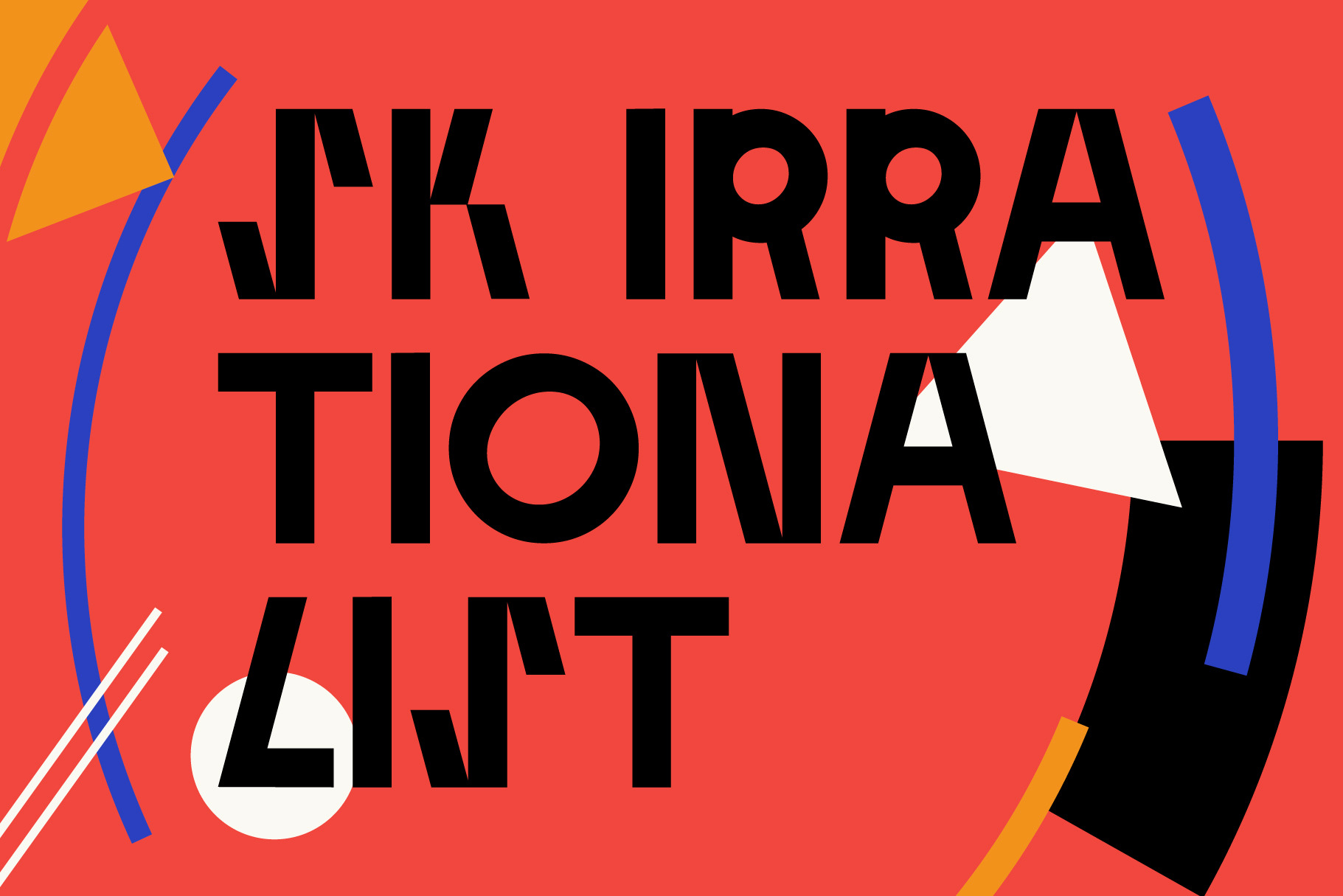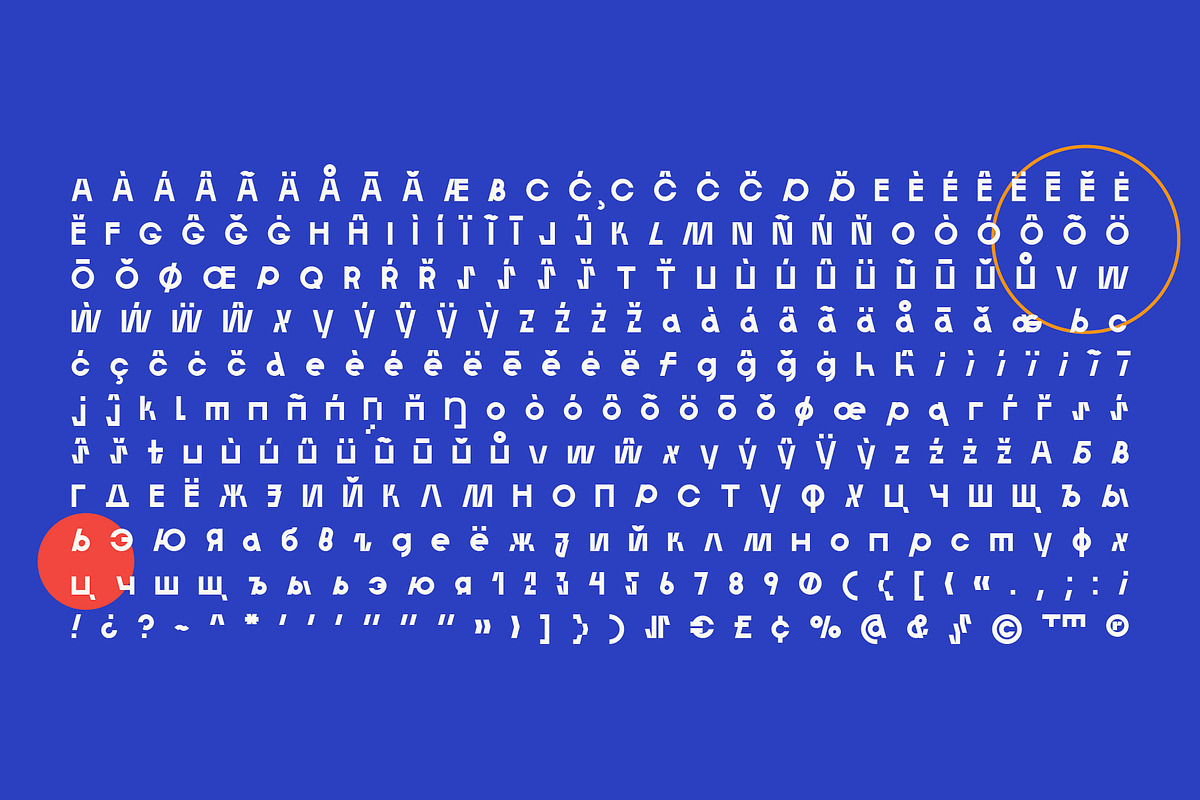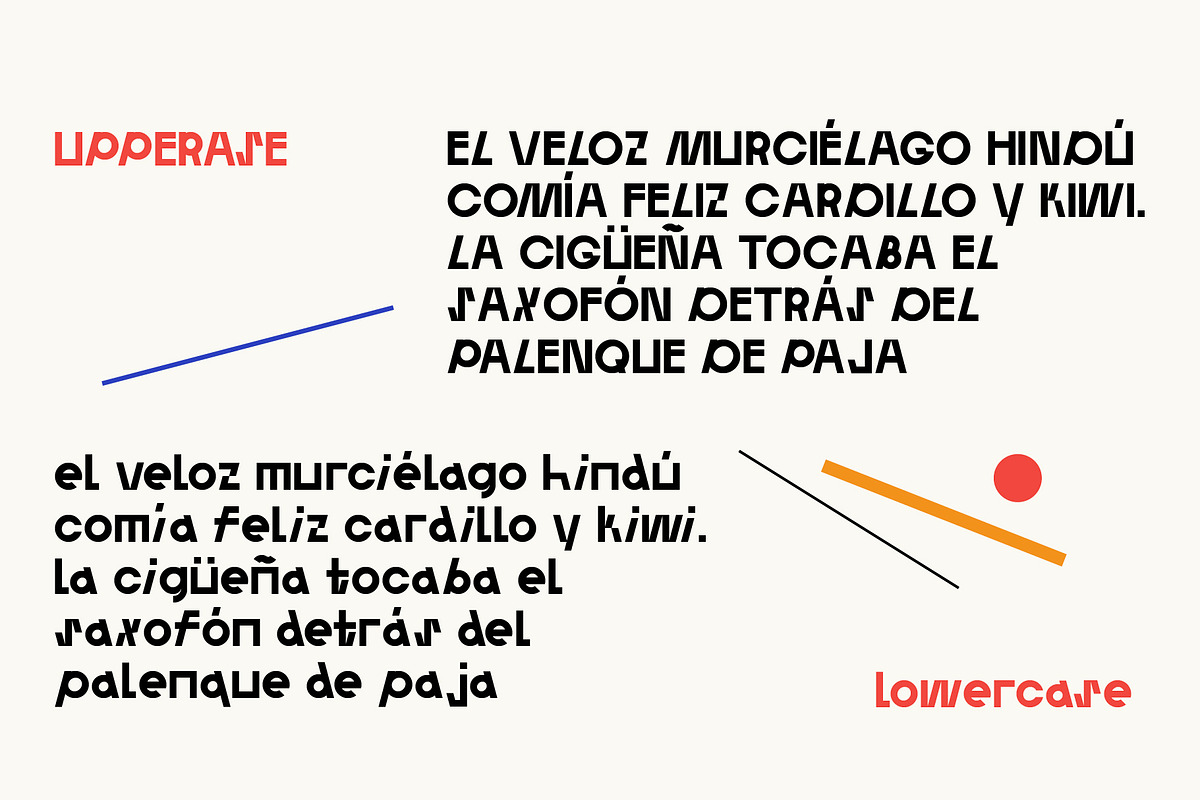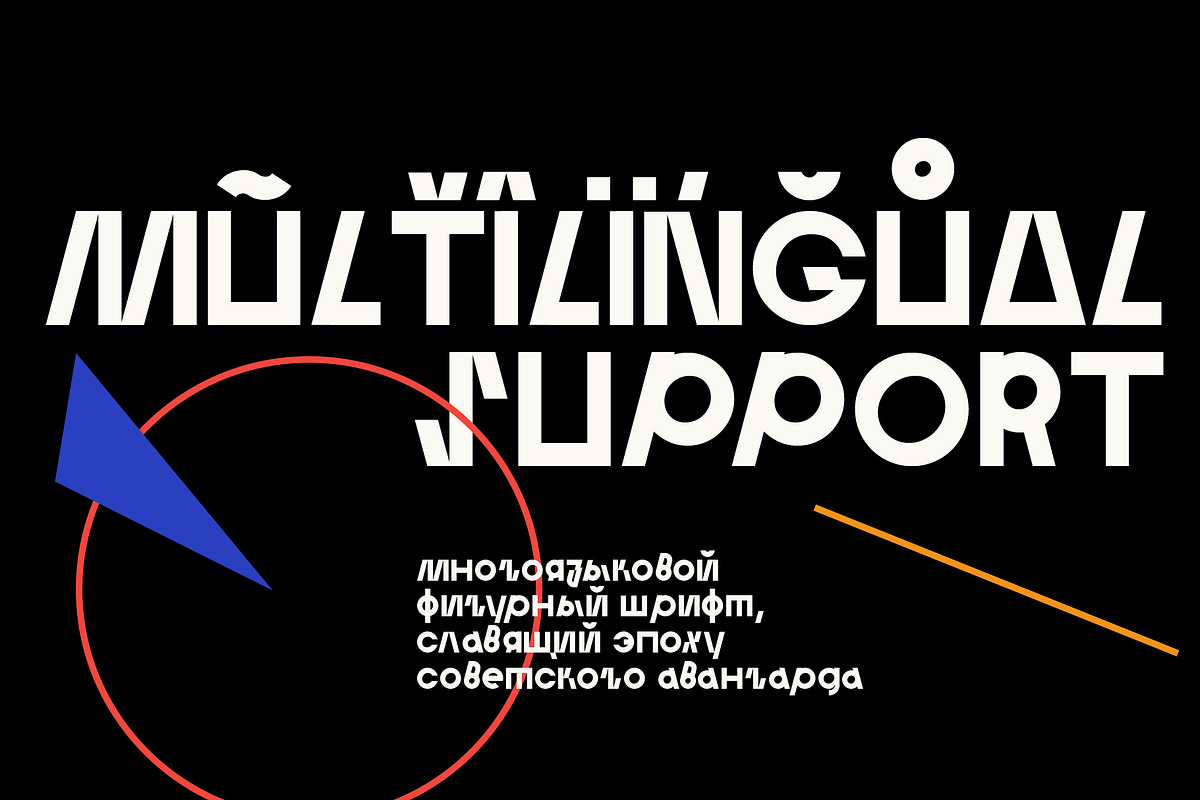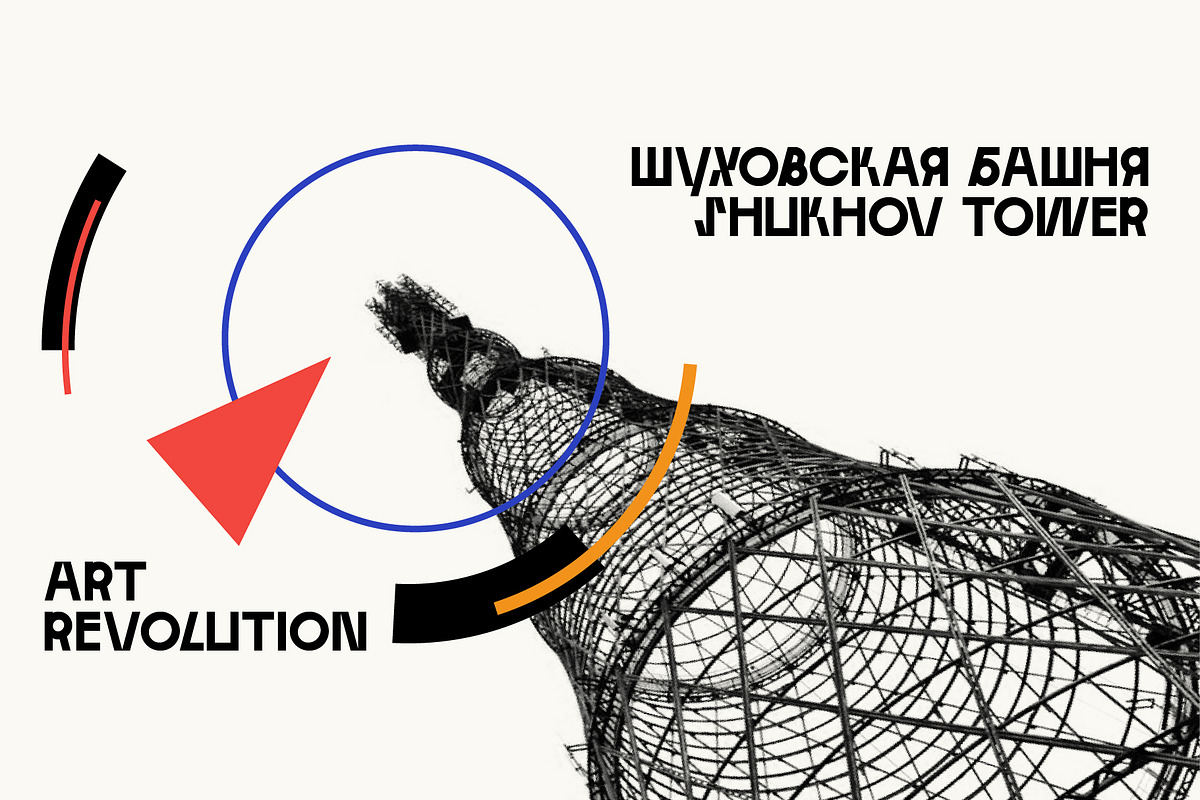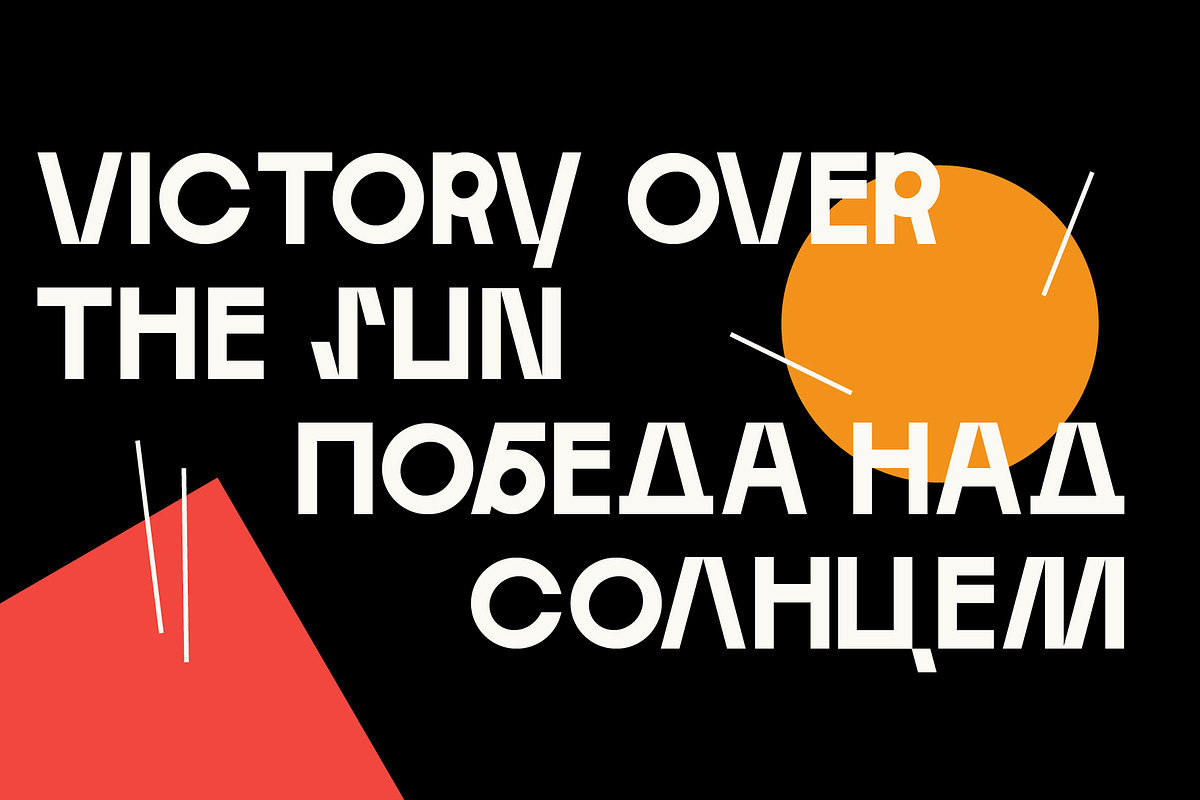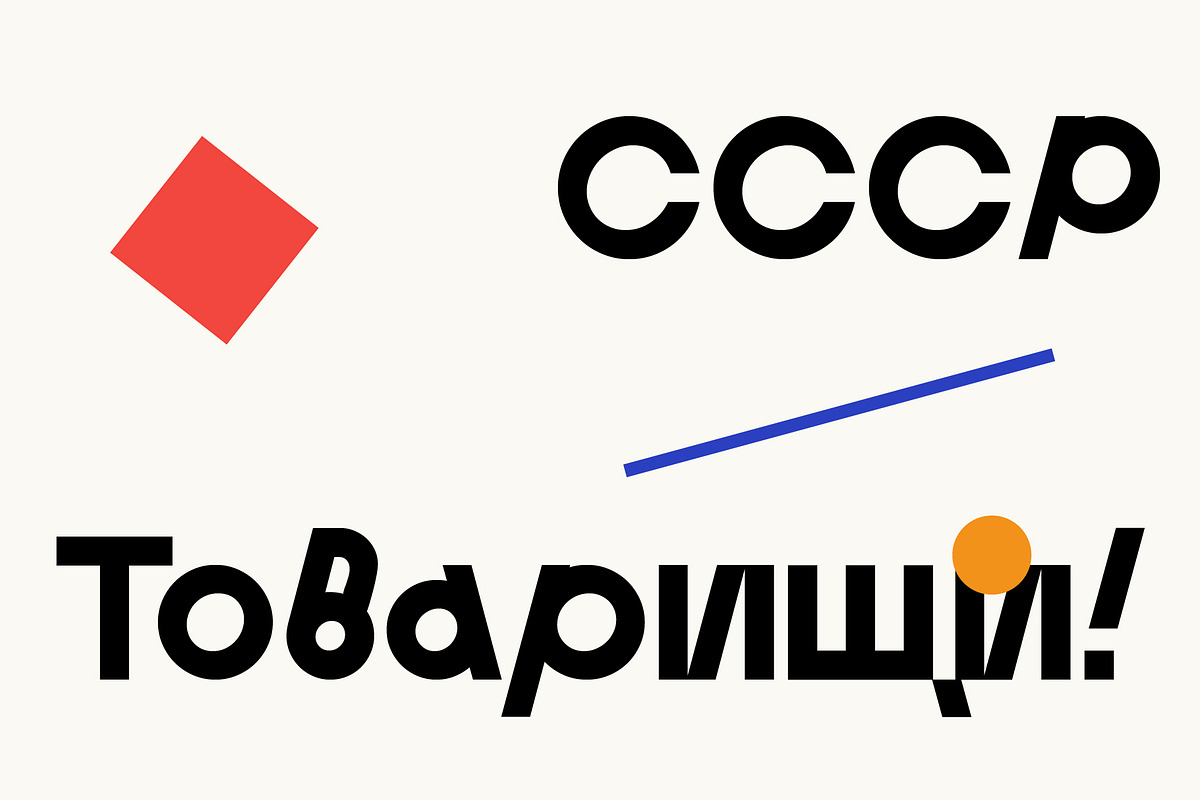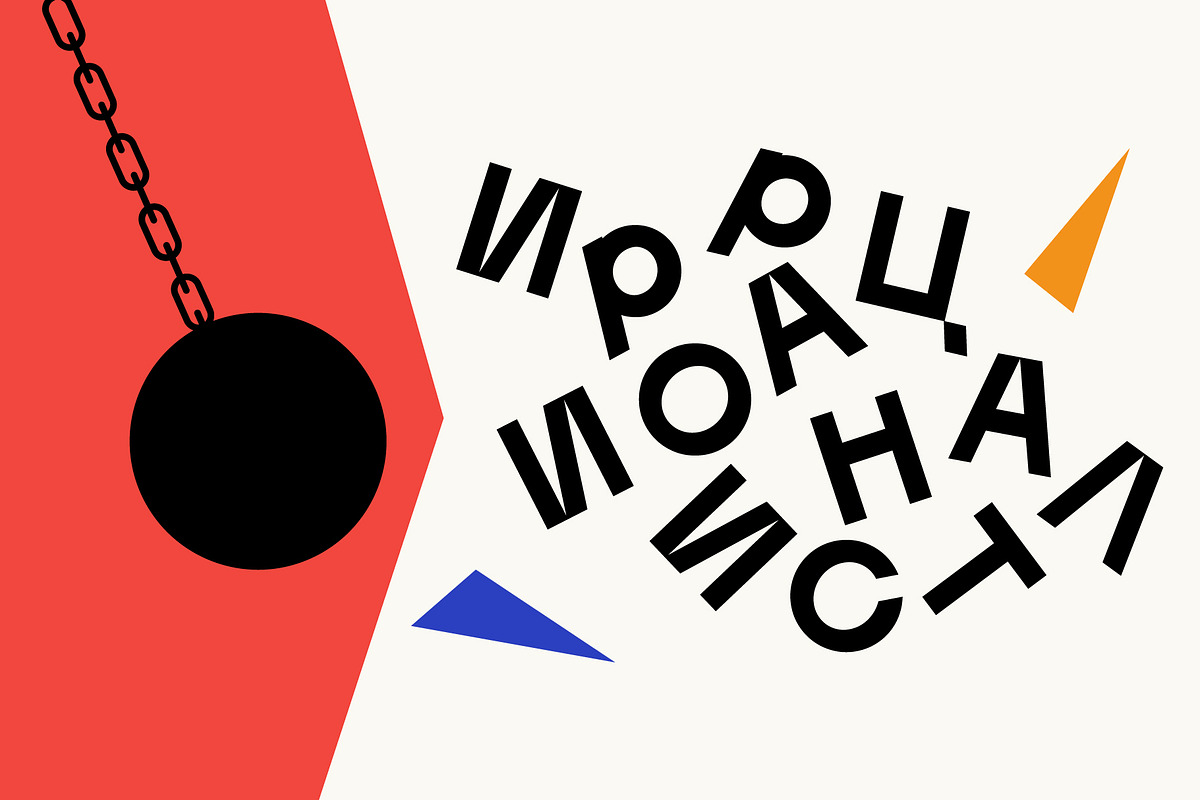
SK Irrationalist — Experimental Font
SK Irrationalist has a unique modernist form and a bold spirit. It is inspired by the works of constructivist artists of the early XX century. It uses non-standard graphic techniques. Slanted non-parallel lines, sharp shapes, and a combination of rectangles and circles all make the font unique and allow you to create great works using it.